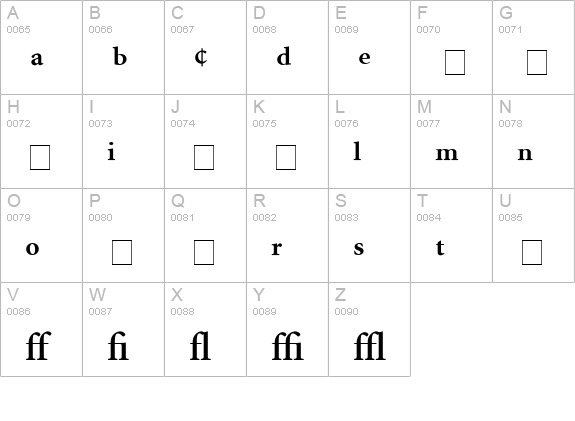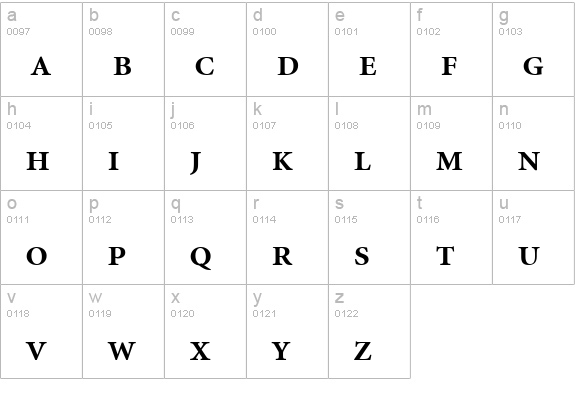
Atlantix Pro SSi Semi Bold is a strong, high-contrast variant in the Atlantix typeface family \xE2\x80\x94 well suited to headlines, attention-grabbing titles, and strong calls-to-action.
Atlantix Pro SSi Semi Bold font exudes a modern and dynamic presence, making it a versatile choice for various design projects. Its clean and bold letterforms capture attention with their strong visual impact, making any text stand out with confidence and style. The semi-bold weight strikes the perfect balance between elegance and readability, making it ideal for headlines, titles, logos, and more. What's even better is that Atlantix Pro SSi Semi Bold font is available for free download at FontsMarket.com. This means you can enhance your designs with this exceptional typeface without any cost, adding a touch of sophistication and professionalism without breaking the bank. Don't miss out on this opportunity to elevate your projects with Atlantix Pro SSi Semi Bold font - download it today and let your creativity shine!